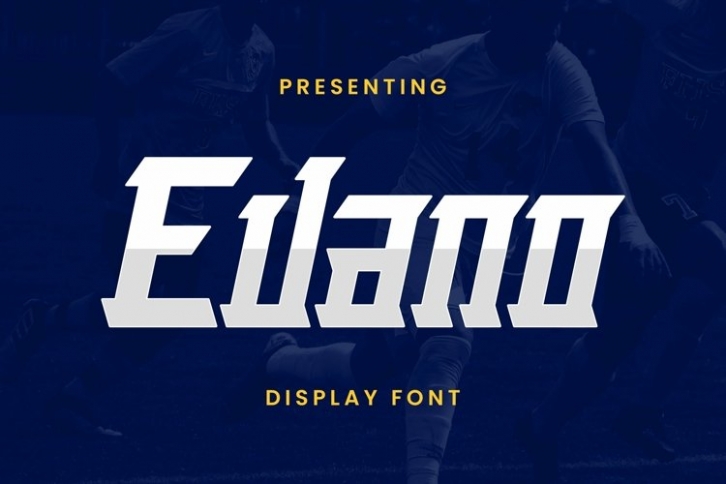
Web Evano is a beautiful font that was designed by plusstore. It's a great choice for designers and creatives who need such a font. It was released on August 28, 2021 and the file size is 7.4 MB. Web Evano may give a more youthful, expressive and casual look to your project. It is a very beautiful, refined, elegant, and high-quality font.